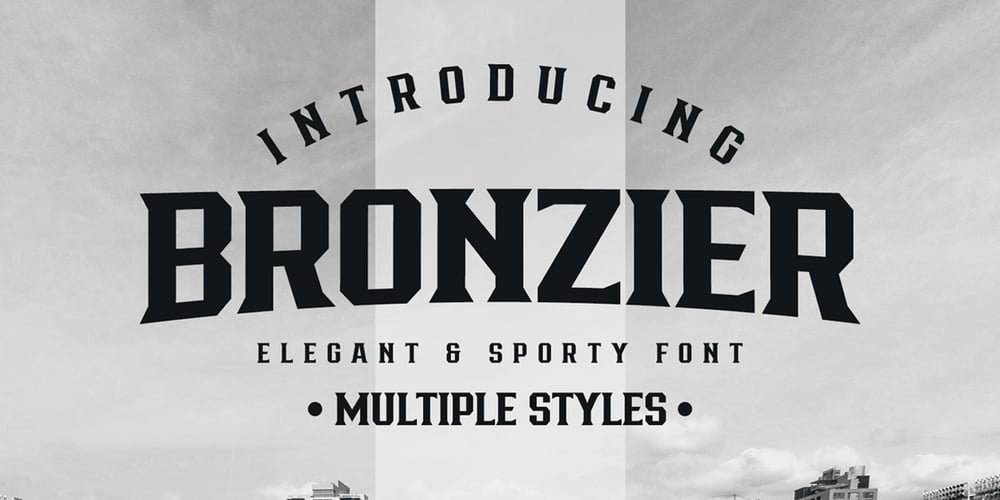
Bronzier Font Family was designed by Ahmad Ramzi Fahruddin and published by Arterfak Project. Bronzier contains 7 styles and family package options. Bronzier is a strong serif display family with 8 different styles. Bronzier was designed with a strong and sharp serif which gives it a more manly look. Sporty, vintage and modern taste at the same time which mean you can use this font family for many design styles. Inspired by old-school typography and modern style. Create a perfect design with Bronzier! Because Bronzier is suitable for logos, logotypes, apparel, jersey, tags, labels, posters, stickers, branding and more.